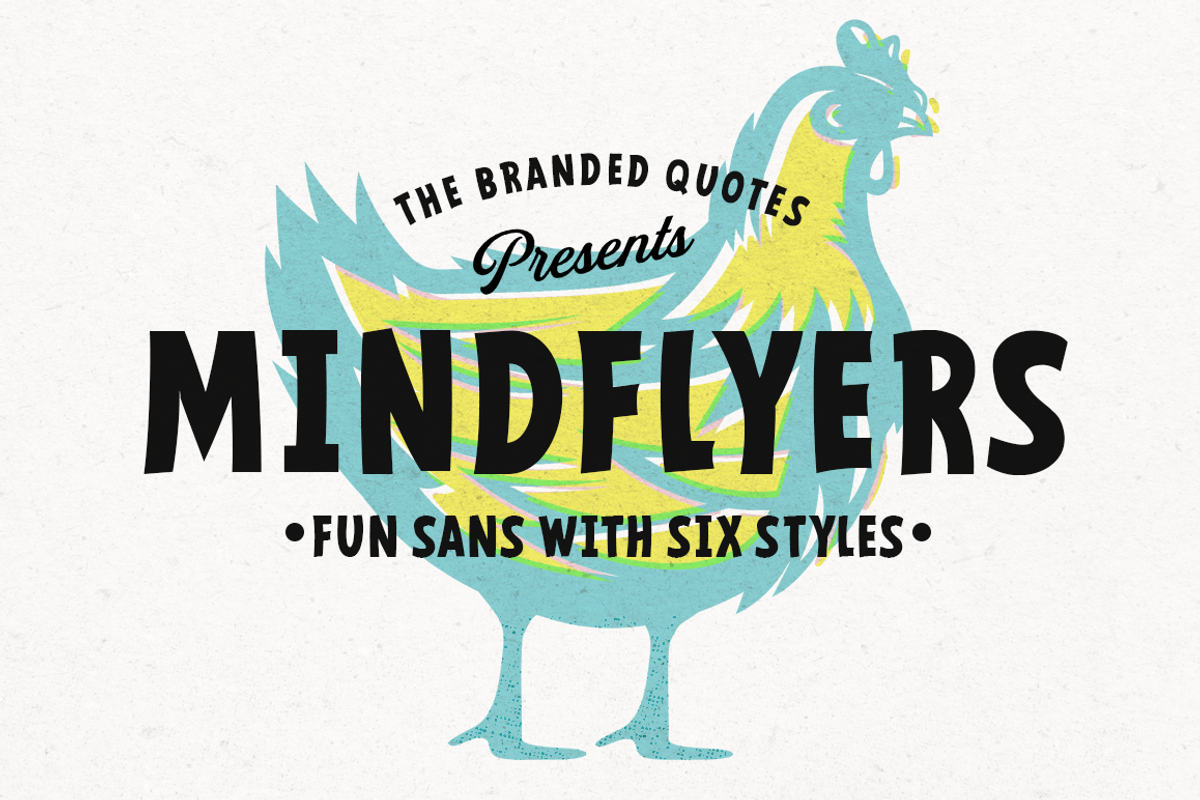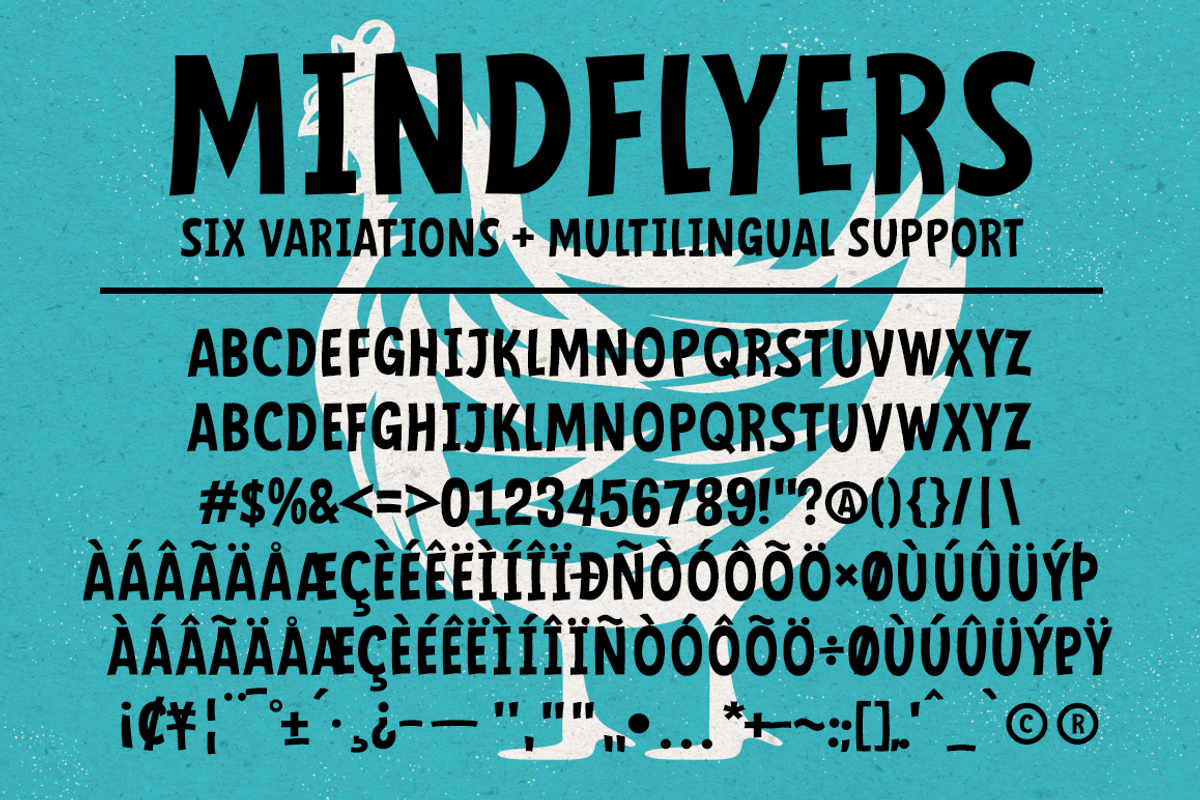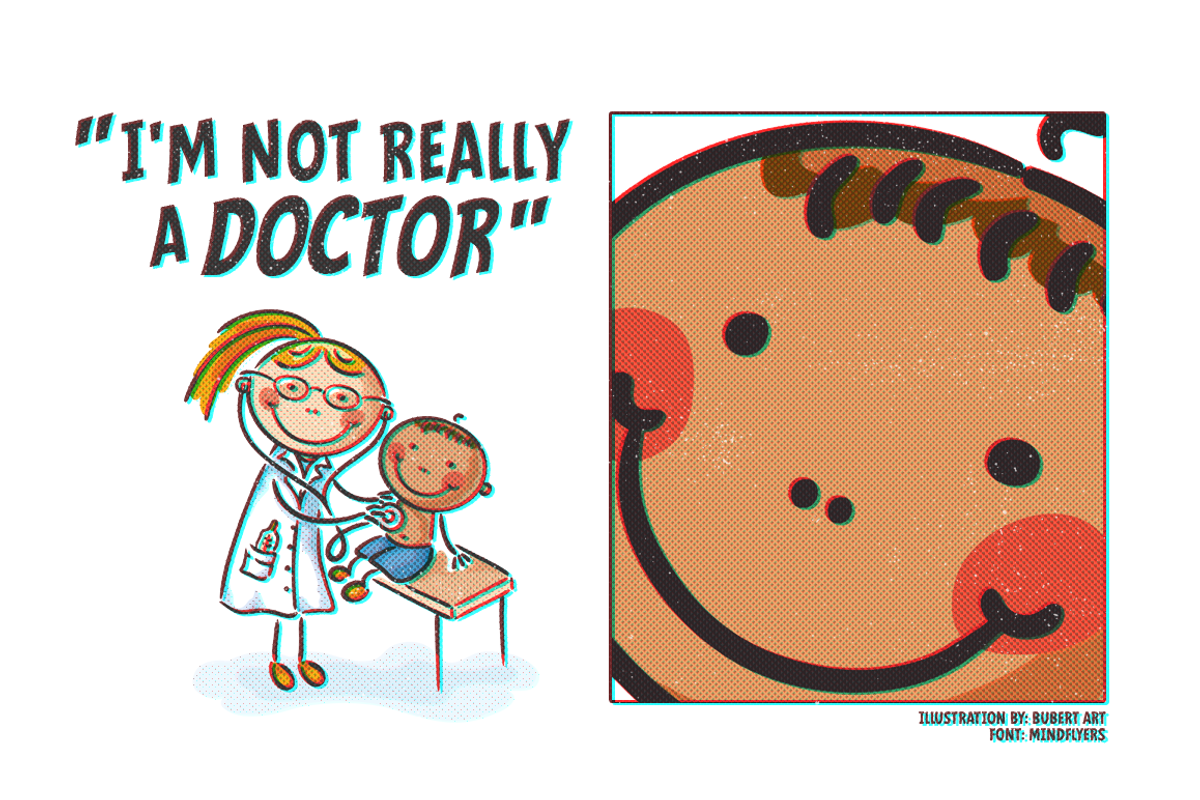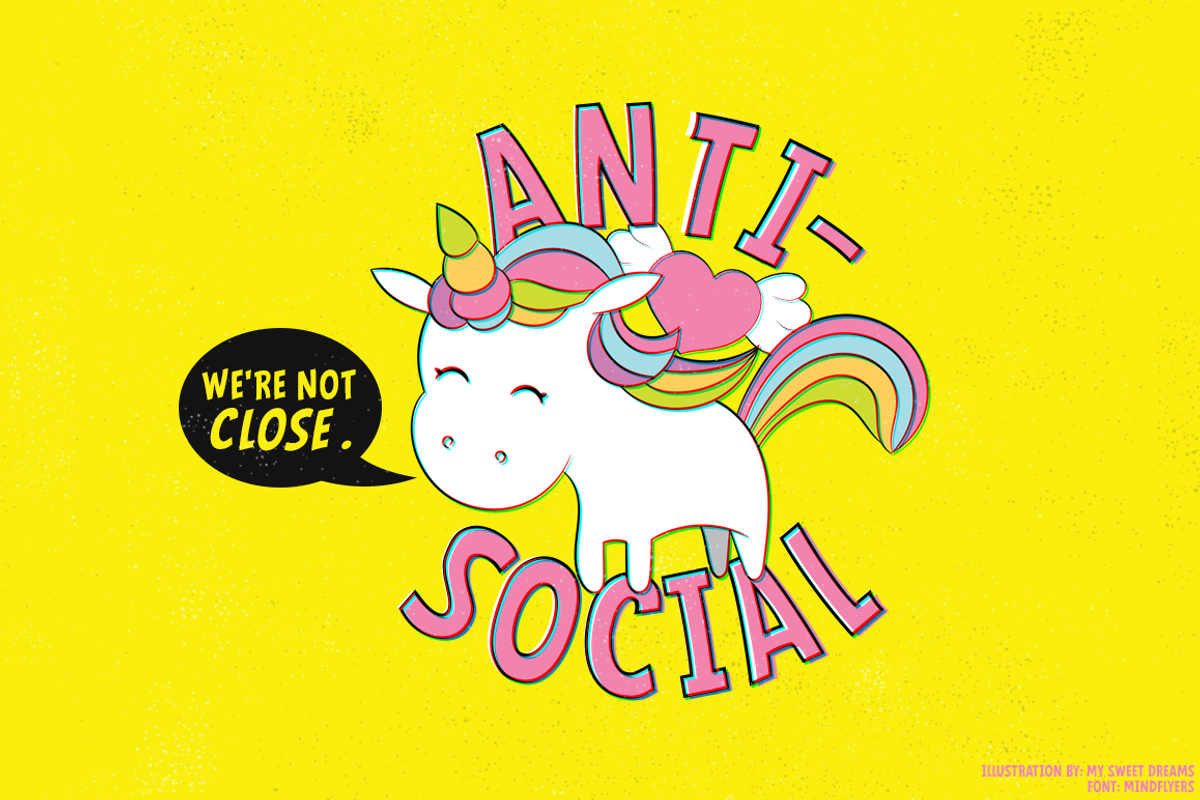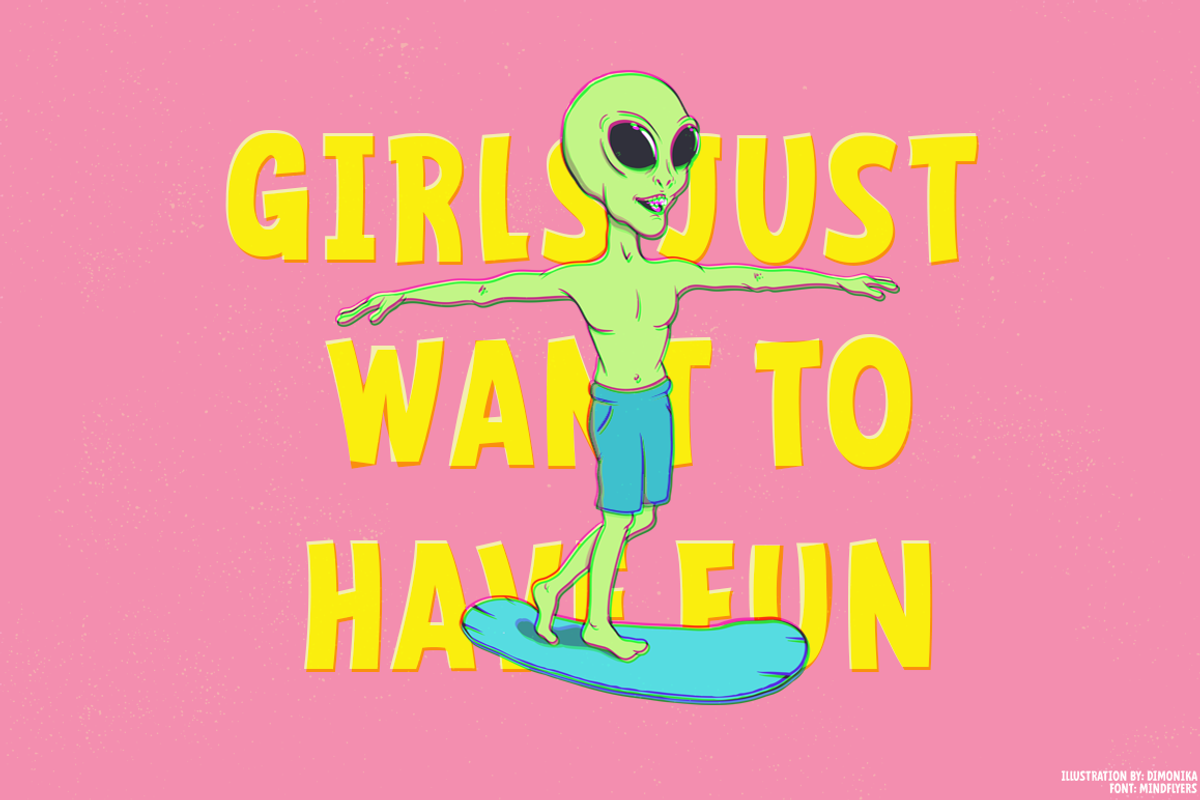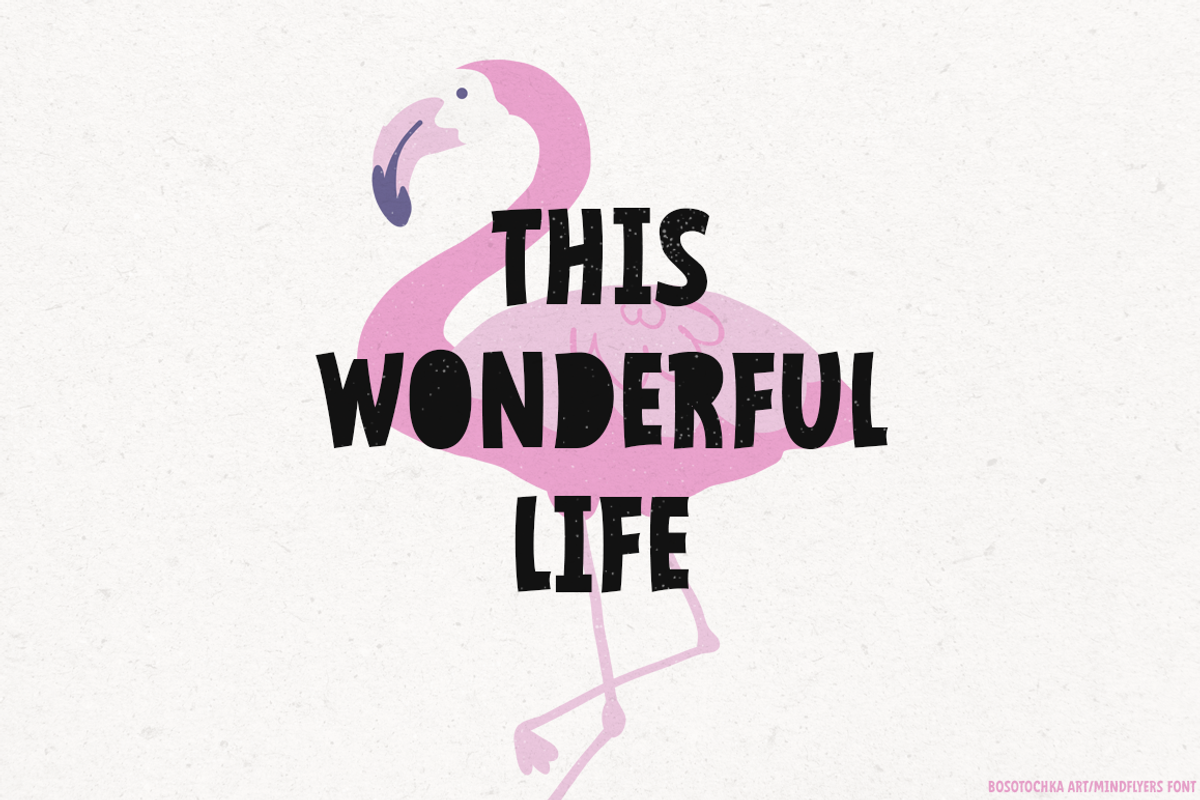
Mindflyers Font
When you're serious at presenting your fun design. Mindflyers captures the look of a semi-formal sans serif. It has six different styles so you don't need to tweak anything. This font works great for a fun and minimal logo, comics strip, bold posters, tumblr fun quotes and pop-art style projects.
Font Styles: Bold, Regular, Outline, Fill, Comics, Comics Italic
Mindflyers Font by The Branded Quotes fits naturally into Branding, posters, packaging, typography.